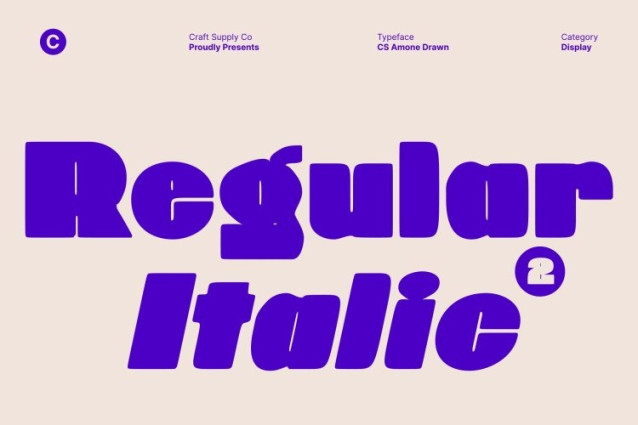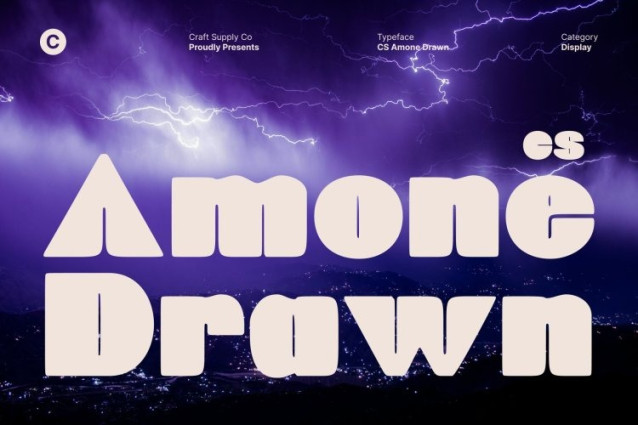
CS Amone Drawn Font
CS Amone Drawn Font This is a bold display sans serif designed to convey strength, confidence, and undeniable presence. Its heavy strokes and commanding proportions create a visually assertive font that captures attention immediately, making every word feel intentional and powerful.
Strong, Balanced Letterforms with Maximum Impact
Each character is carefully constructed with substantial weight and geometric balance, resulting in a typeface that feels grounded, stable, and visually authoritative. Thick strokes and bold silhouettes ensure high visibility, giving your text a muscular, impactful character.
Perfect for Headlines and Attention-Grabbing Design
This font thrives in designs that demand focus. Ideal for headlines, posters, and hero text, this font naturally draws the eye, creating a powerful focal point. Its bold personality ensures that every composition feels decisive, memorable, and visually striking.
Ideal for Branding, Advertising, and Statement Typography
From branding and promotional materials to campaign visuals and merchandise, this font projects confidence and authority. Perfect for designers who want their layouts to make a bold statement, this font elevates any project with power, clarity, and enduring visual impact.